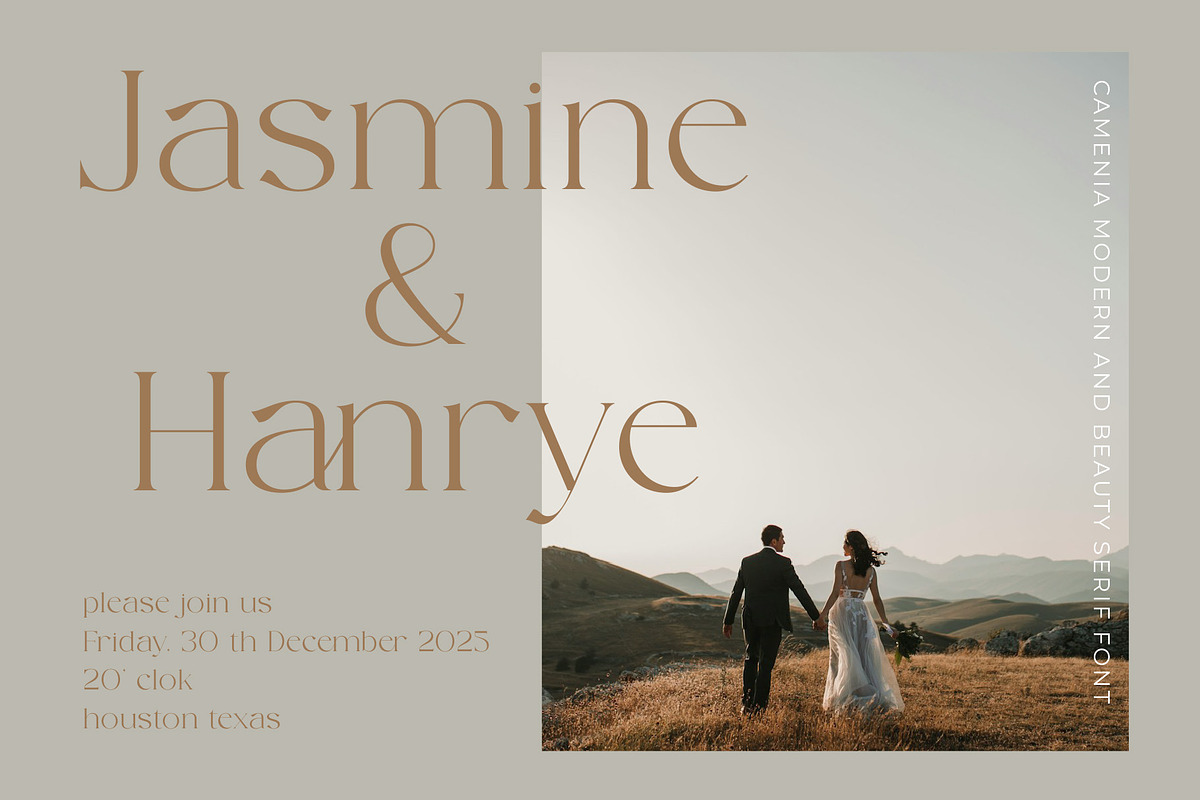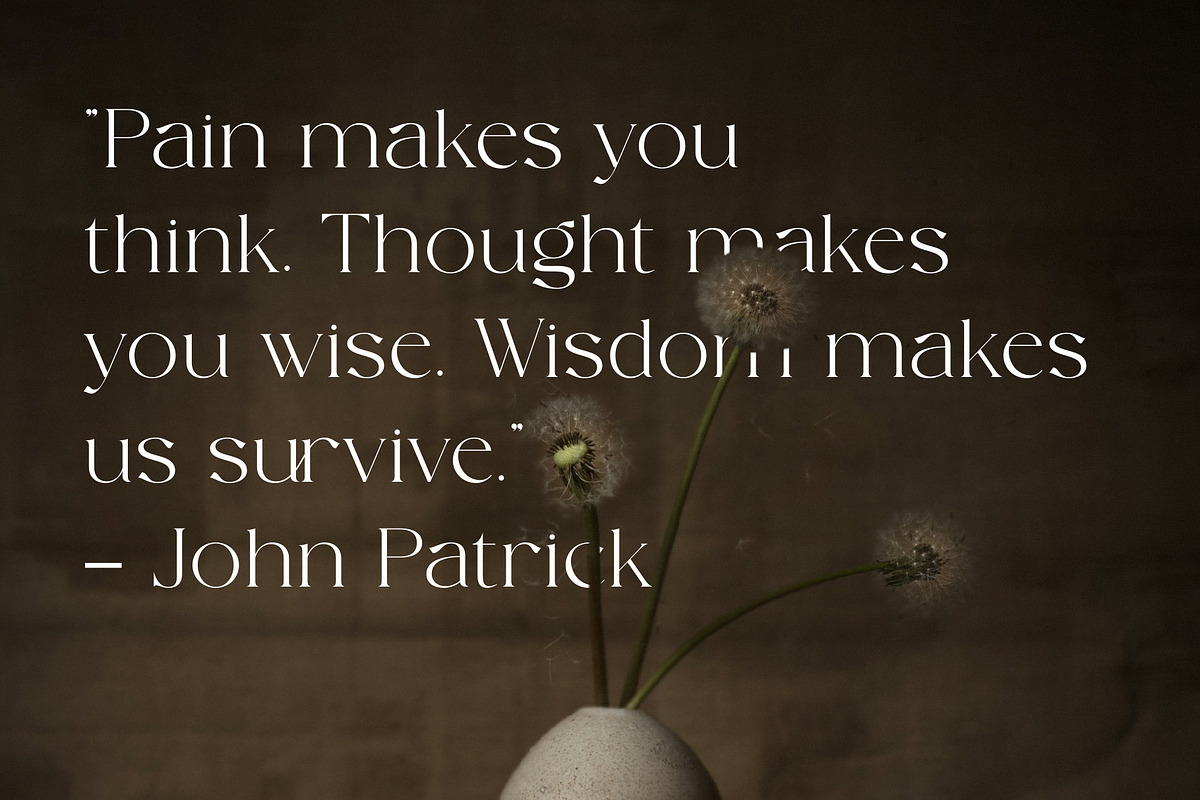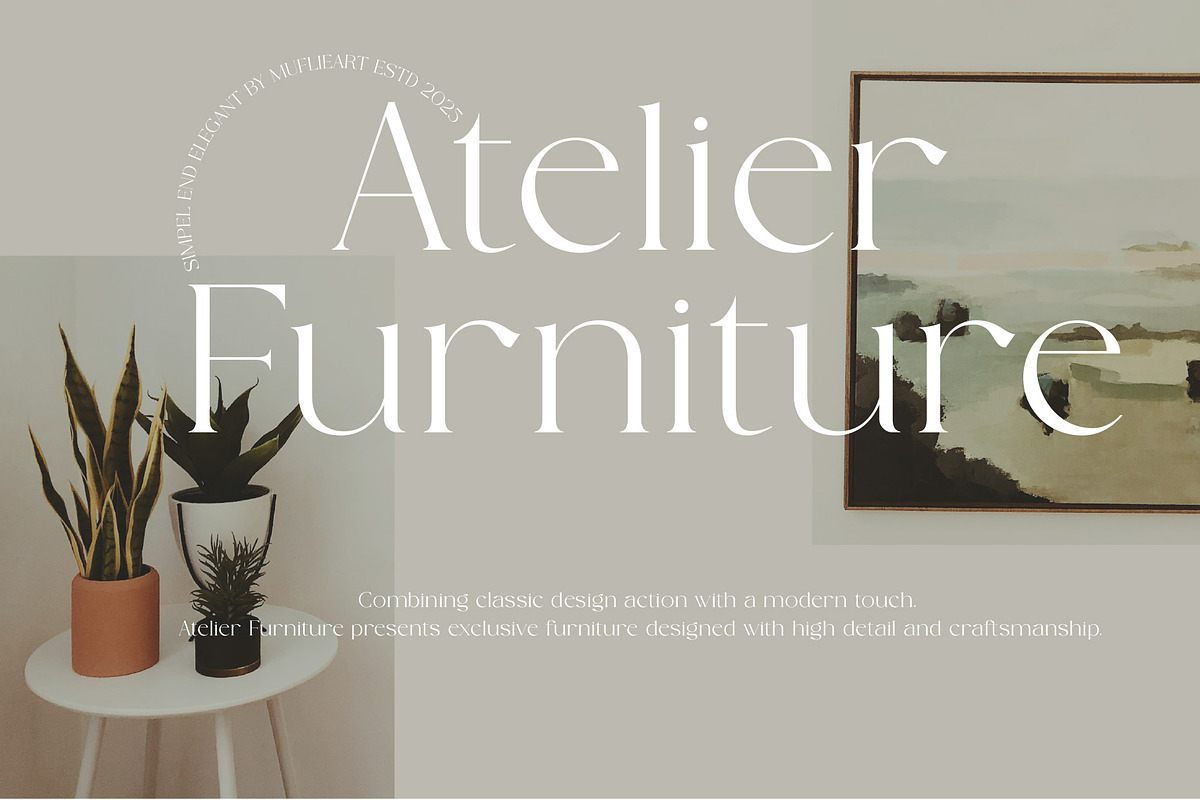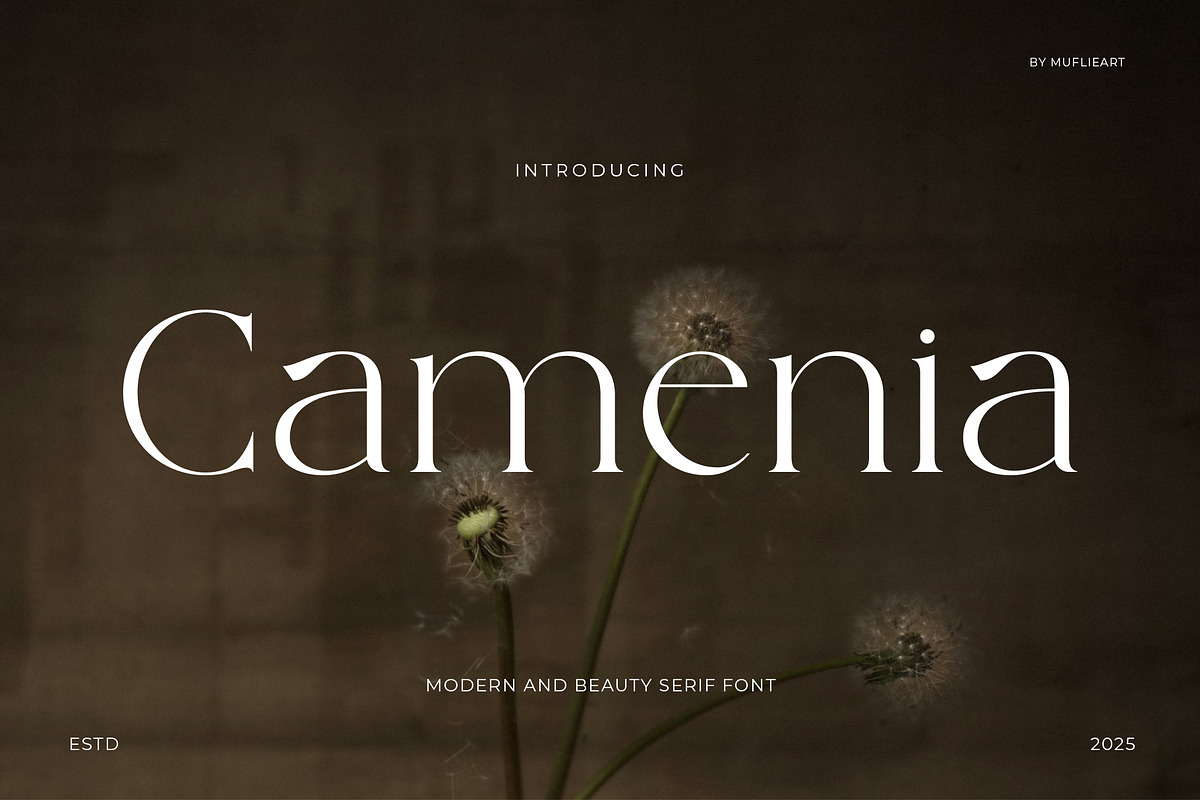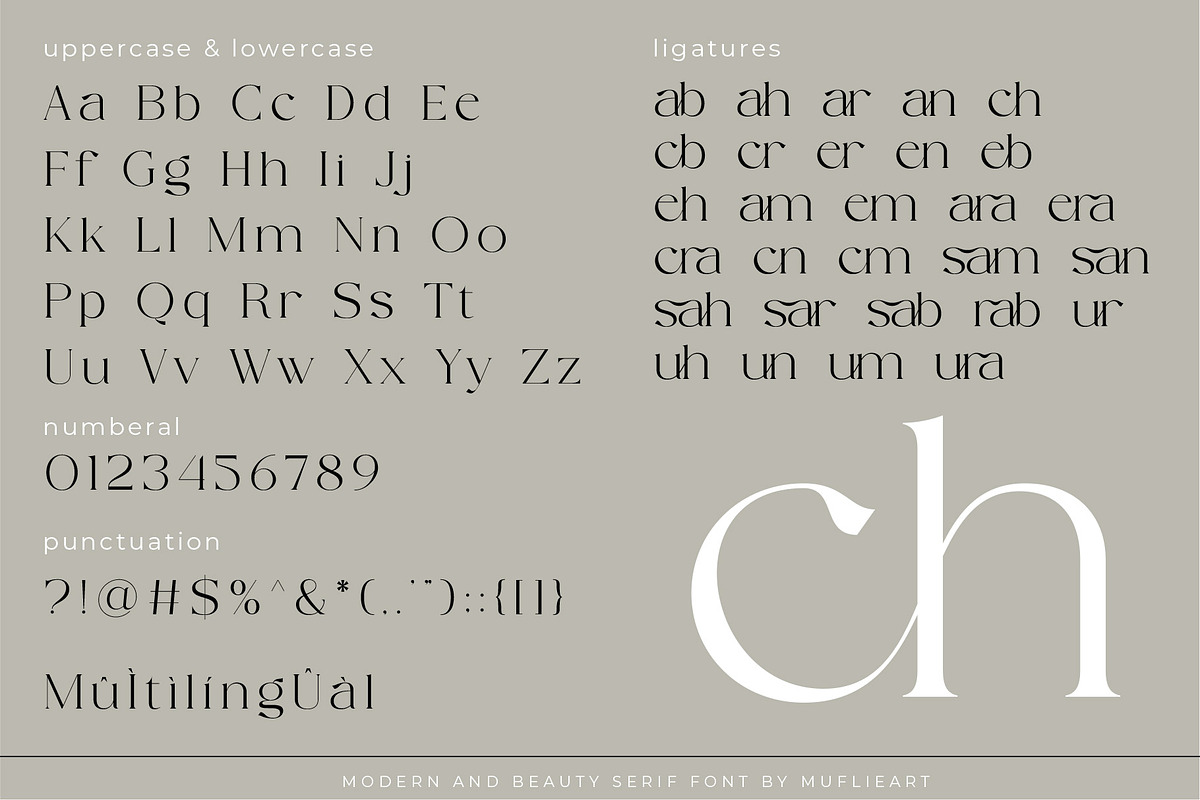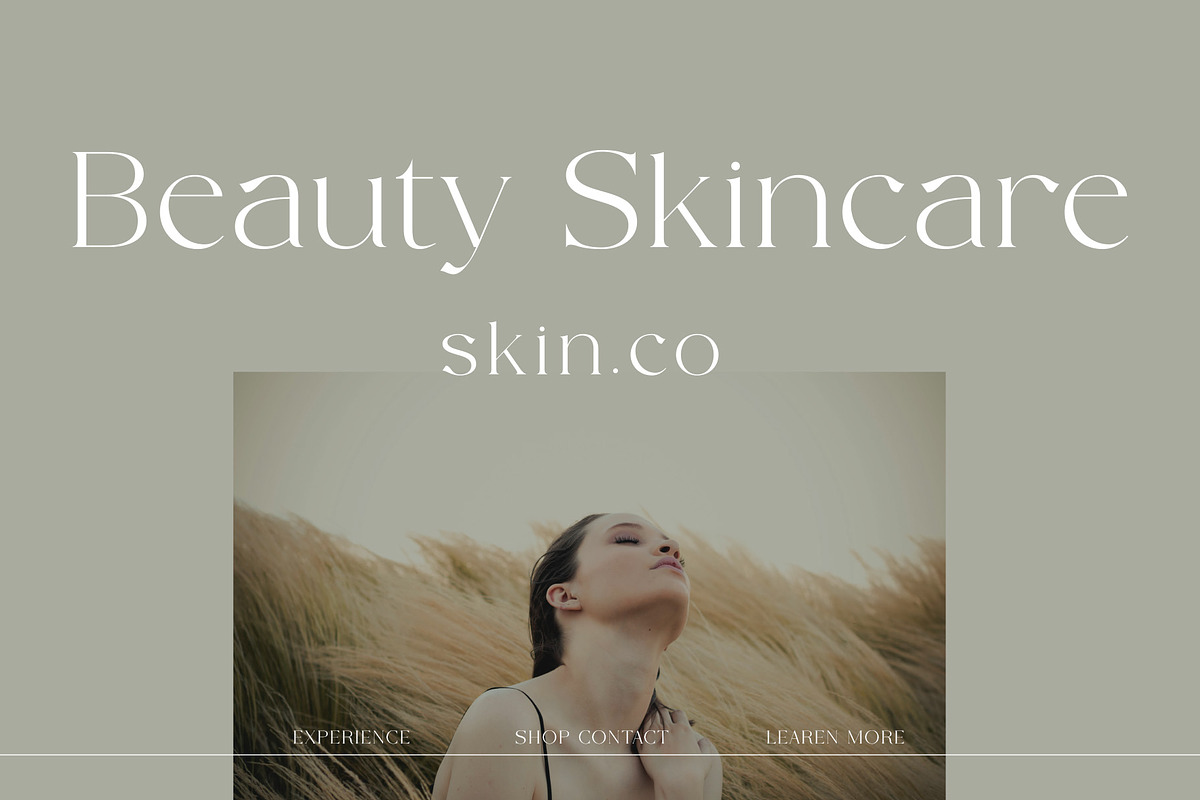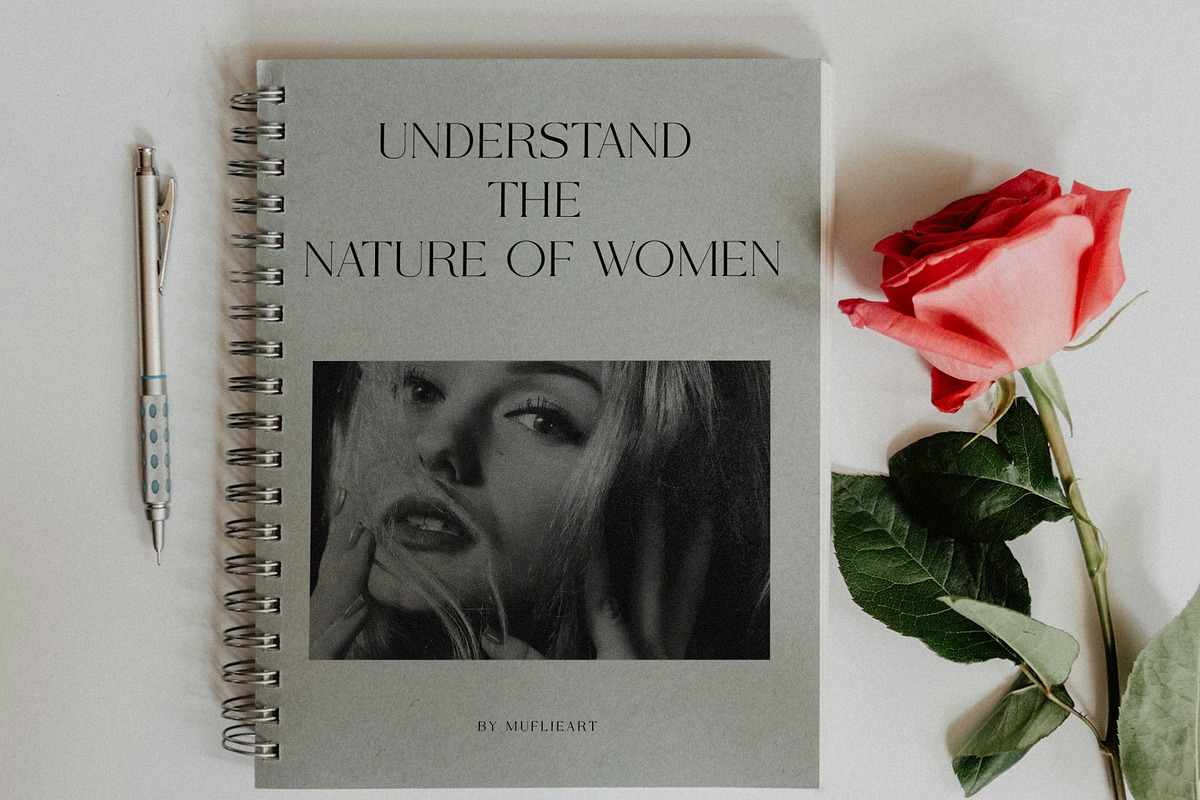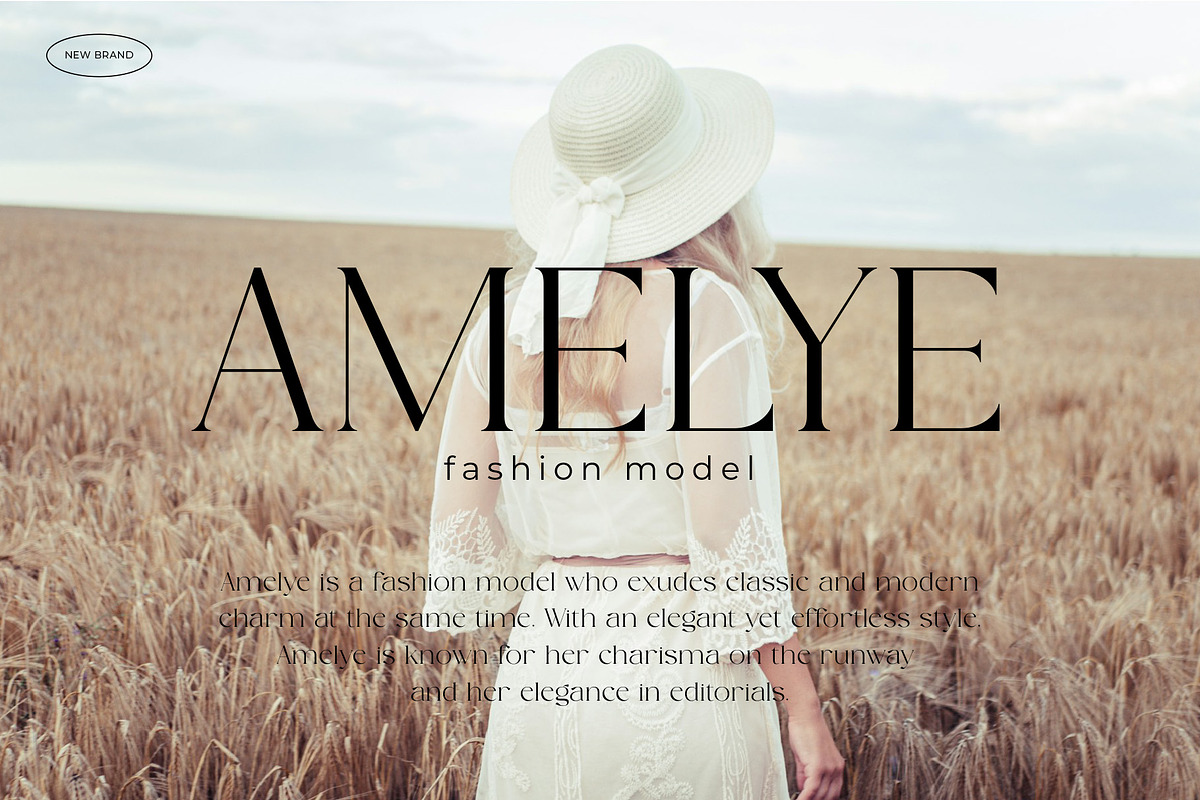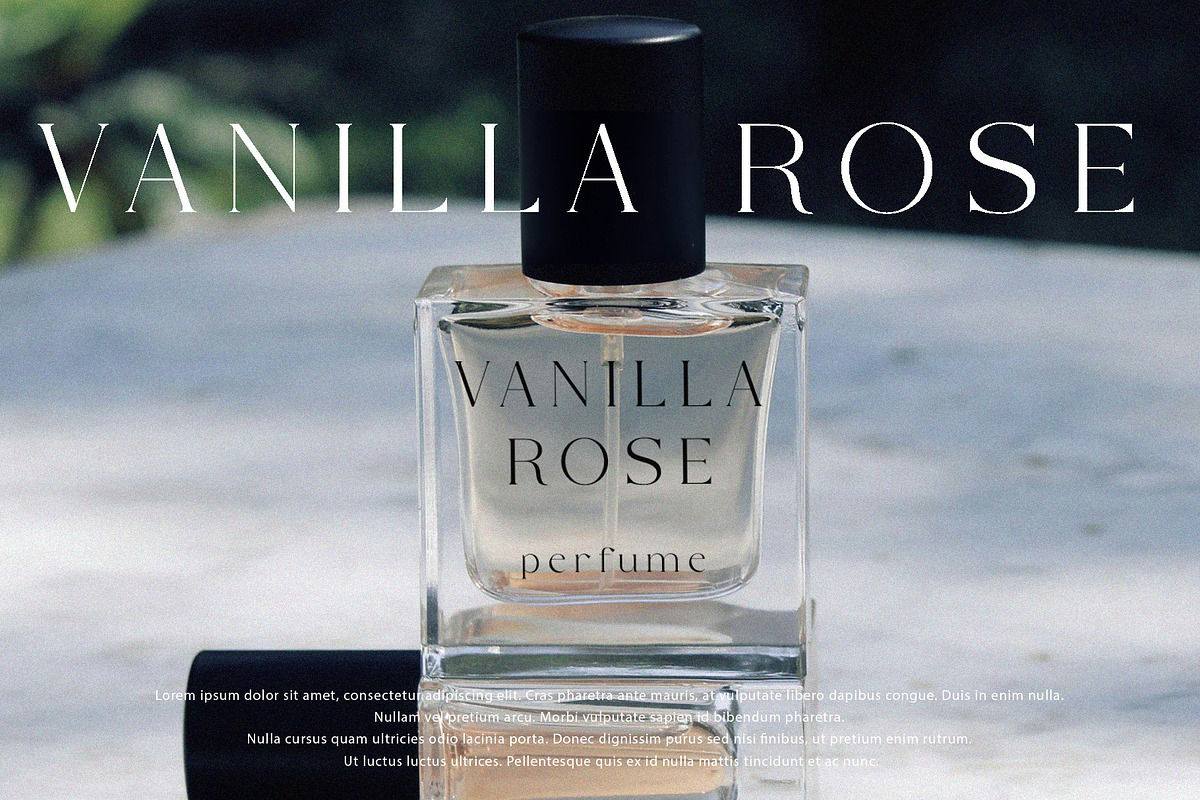
Camenia - Modern And Beauty Serif
Introducing Camenia the elegant, beautiful, and modern Serif. With its modern and minimalist look, Camenia brings a luxurious, classy, and clean style to your projects such as websites, modern logos, brand identities, social media quotes, wedding stationery, magazines, and more!
Camenia features unique and classy capital letters A to Z and also comes with unique alternates and ligatures making Camenia a beautiful font that can be customized for various projects and jobs you want.
Camenia is perfect for: logos, brands, wedding invitations, business cards, greeting cards, posters, magazines, social media, agenda prints, and websites.